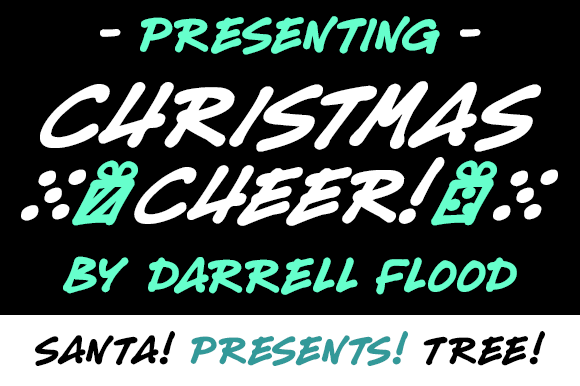
Spreading Christmas Cheer with a Festive Font
Are you looking for a way to add some extra holiday magic to your Christmas designs? Look no further than the Christmas Cheer Font! This expressive, hand-drawn display font is perfect for creating festive and fun designs that are sure to spread Christmas cheer. In this article, we’ll take a closer look at the Christmas Cheer Font, its features, and how you can use it to make your designs stand out.
What is Christmas Cheer Font?
Christmas Cheer Font is a unique and charming display font that is designed to capture the spirit of the holiday season. With its loose, energetic style, this font is perfect for creating eye-catching designs that are sure to grab attention. The font includes a range of characters, including little charming presents and playful snow characters, making it ideal for Christmas and birthday-themed designs.
Key Features of Christmas Cheer Font
- Hand-drawn design: The Christmas Cheer Font has a unique, hand-drawn design that gives it a personal and charming touch.
- Loose, energetic style: The font has a loose, energetic style that is perfect for creating fun and festive designs.
- Charming presents and snow characters: The font includes a range of charming presents and playful snow characters that add to its festive charm.
- Perfect for Christmas and birthday designs: The Christmas Cheer Font is ideal for creating Christmas and birthday-themed designs that are sure to impress.
How to Use Christmas Cheer Font in Your Designs
The Christmas Cheer Font is a versatile font that can be used in a range of designs, from holiday cards and invitations to social media graphics and website headers. Here are a few ideas for using the Christmas Cheer Font in your designs:
- Holiday cards and invitations: Use the Christmas Cheer Font to create festive holiday cards and invitations that are sure to impress.
- Social media graphics: Add the Christmas Cheer Font to your social media graphics, such as Facebook and Twitter headers, to give them a festive touch.
- Website headers: Use the Christmas Cheer Font to create eye-catching website headers that are sure to grab attention.
- Crafting projects: The Christmas Cheer Font is also perfect for crafters who want to add a personal touch to their projects, such as handmade cards and gift tags.
Tips for Getting the Most Out of Christmas Cheer Font
Here are a few tips for getting the most out of the Christmas Cheer Font:
- Experiment with different colors: The Christmas Cheer Font looks great in a range of colors, so don’t be afraid to experiment and find the perfect color scheme for your design.
- Use it with other festive fonts: The Christmas Cheer Font pairs well with other festive fonts, so try using it with other fonts to create a unique and eye-catching design.
- Add festive graphics: The Christmas Cheer Font is perfect for creating designs that feature festive graphics, such as snowflakes, holly, and presents.
The Christmas Cheer Font is a unique and charming display font that is perfect for creating festive and fun designs. With its loose, energetic style and charming presents and snow characters, this font is sure to add a touch of holiday magic to your designs. Whether you’re a designer or crafter, the Christmas Cheer Font is a great addition to your font collection. So why not give it a try and see how it can help you create designs that are sure to spread Christmas cheer?